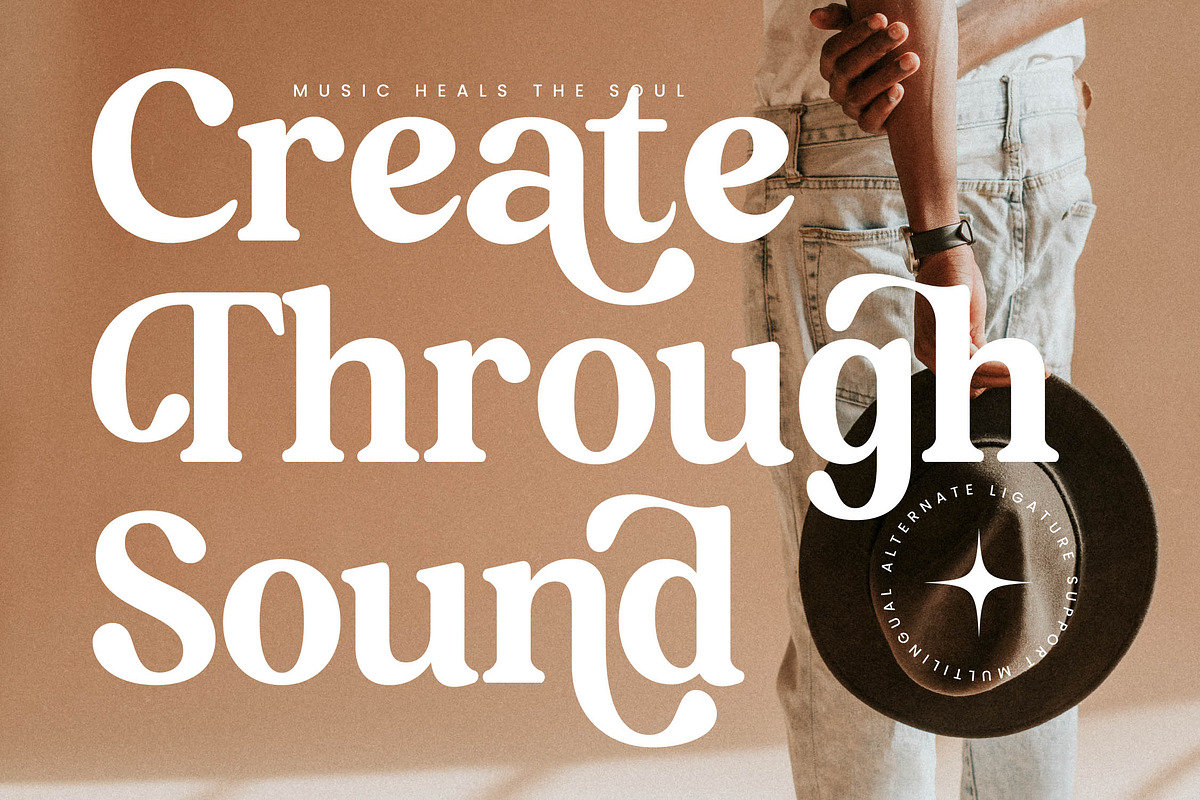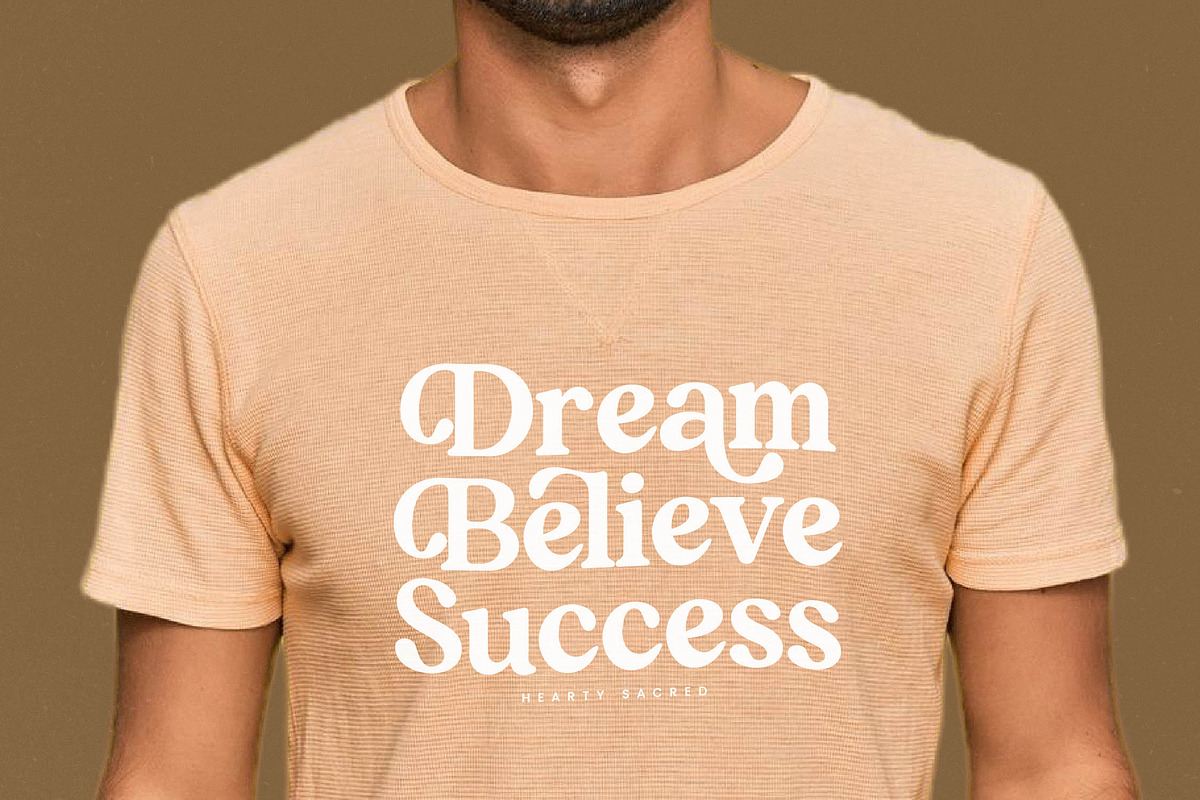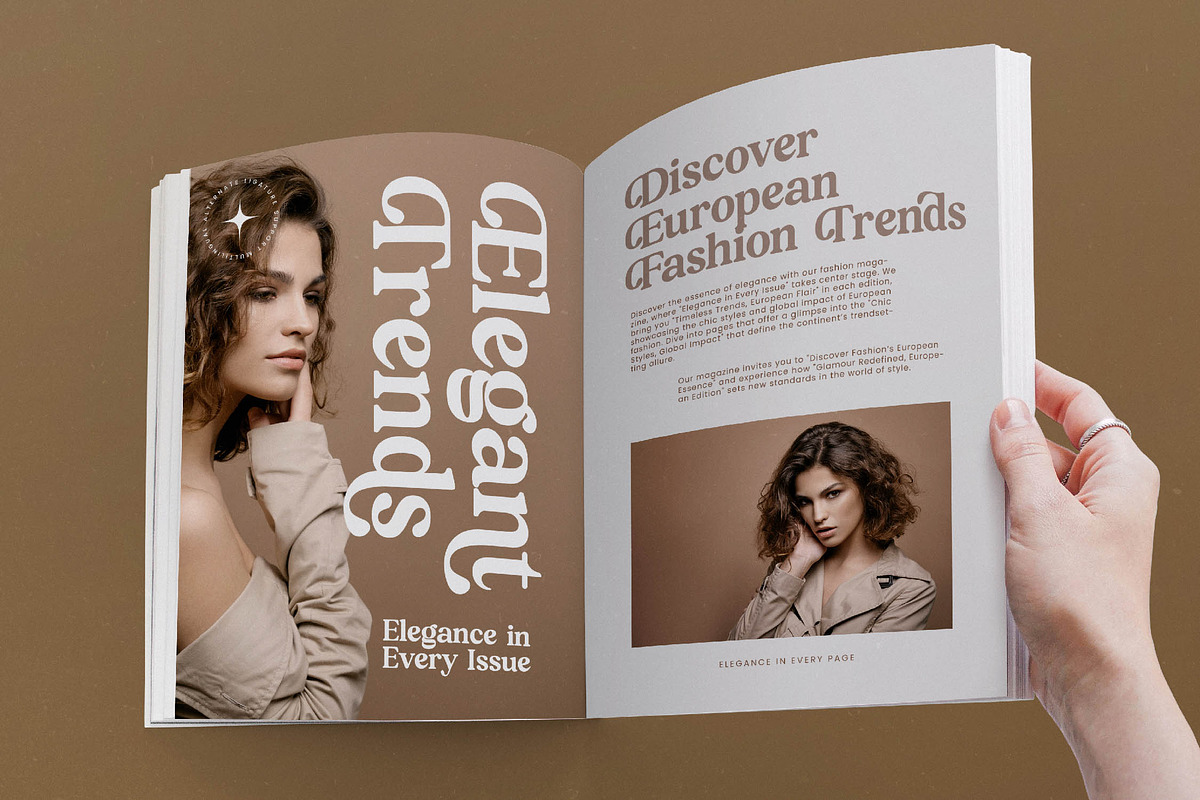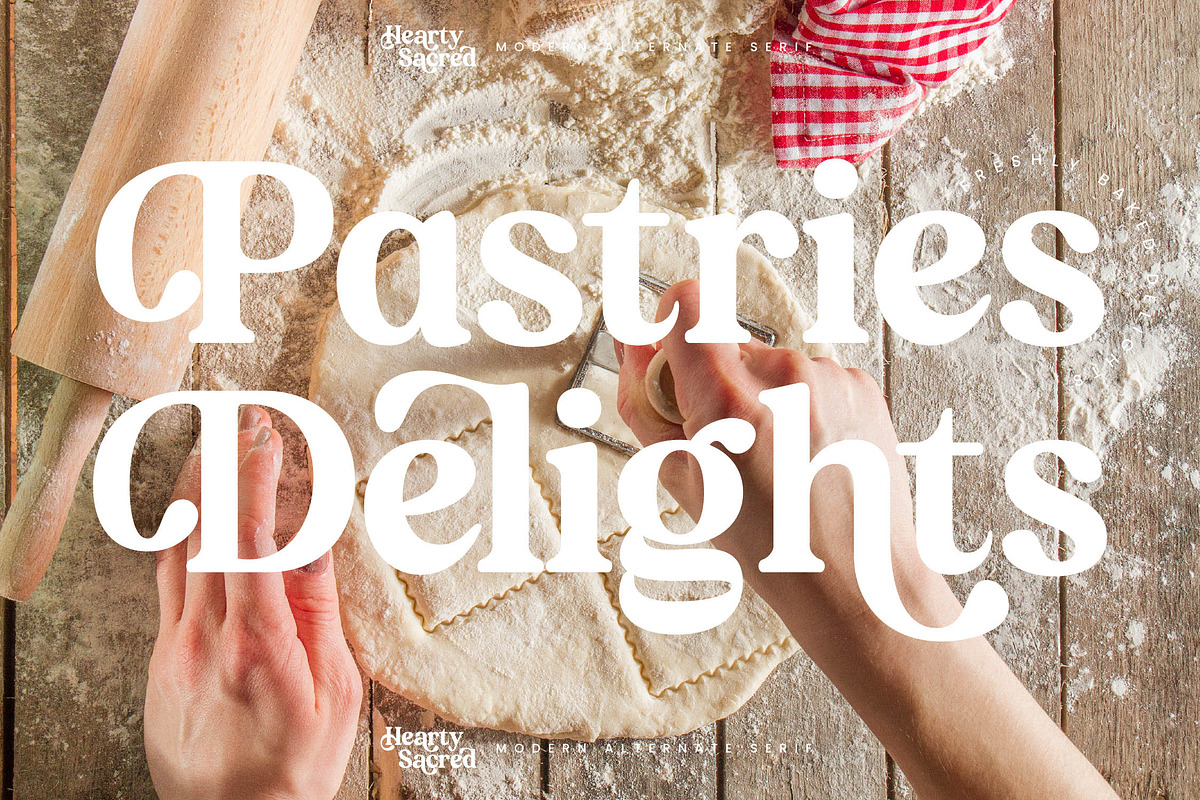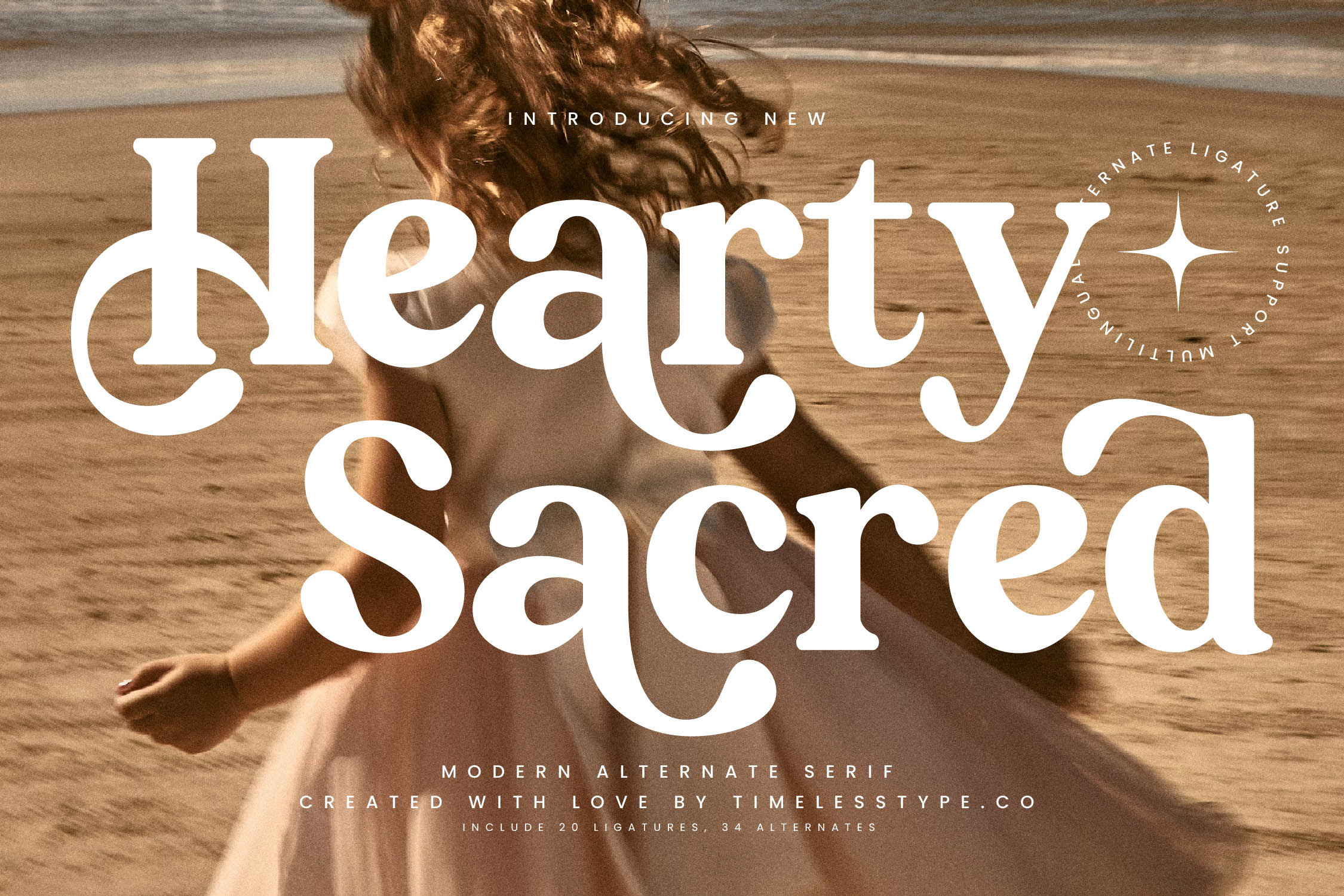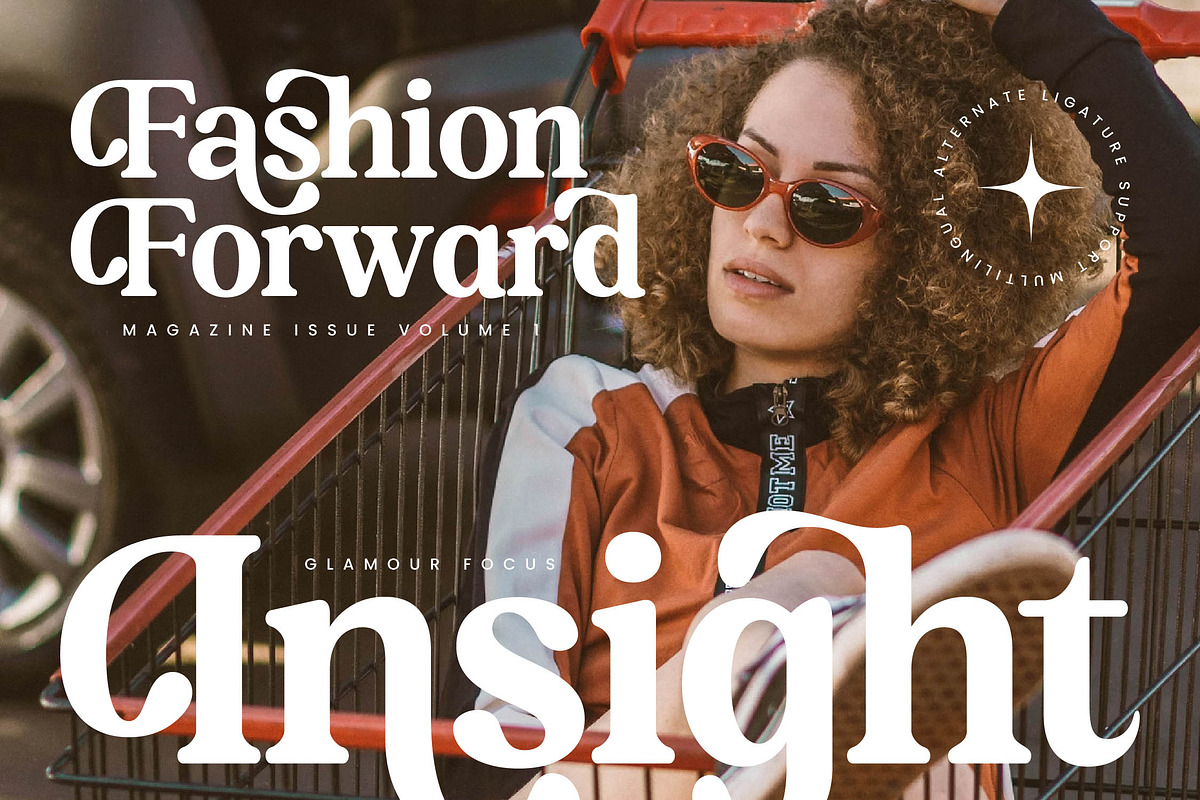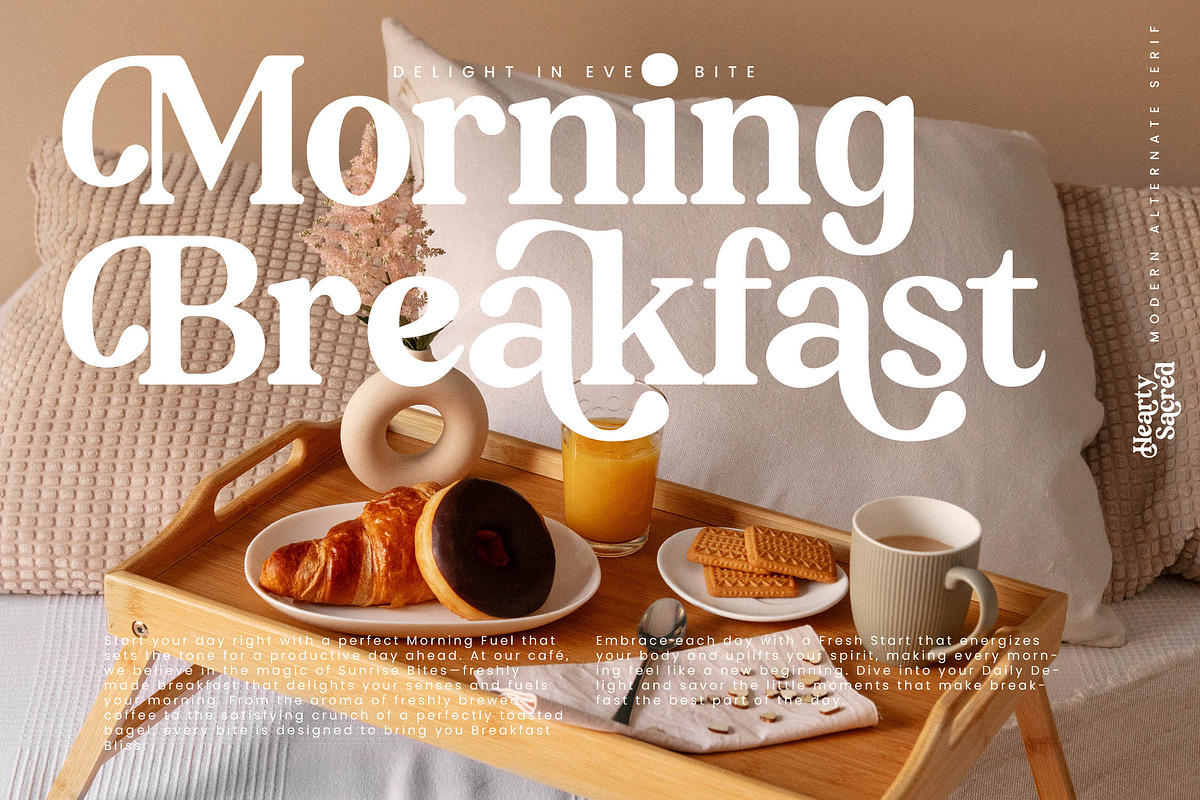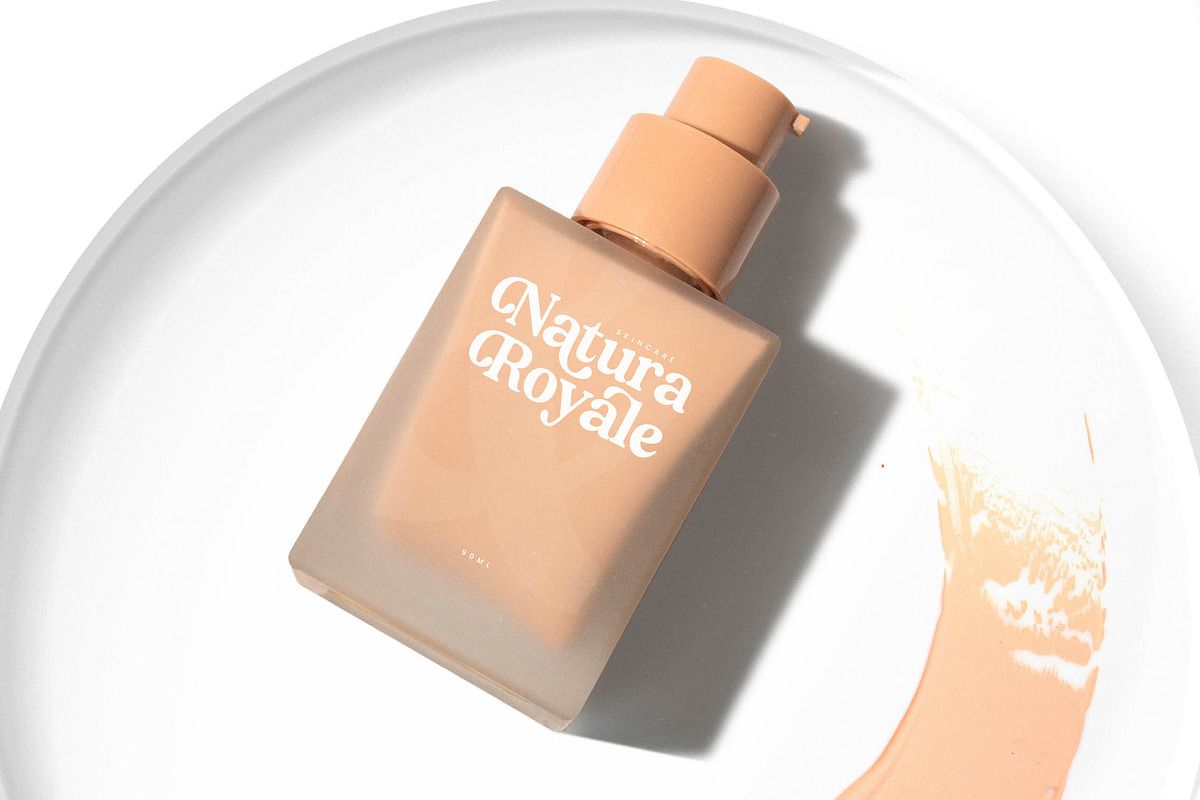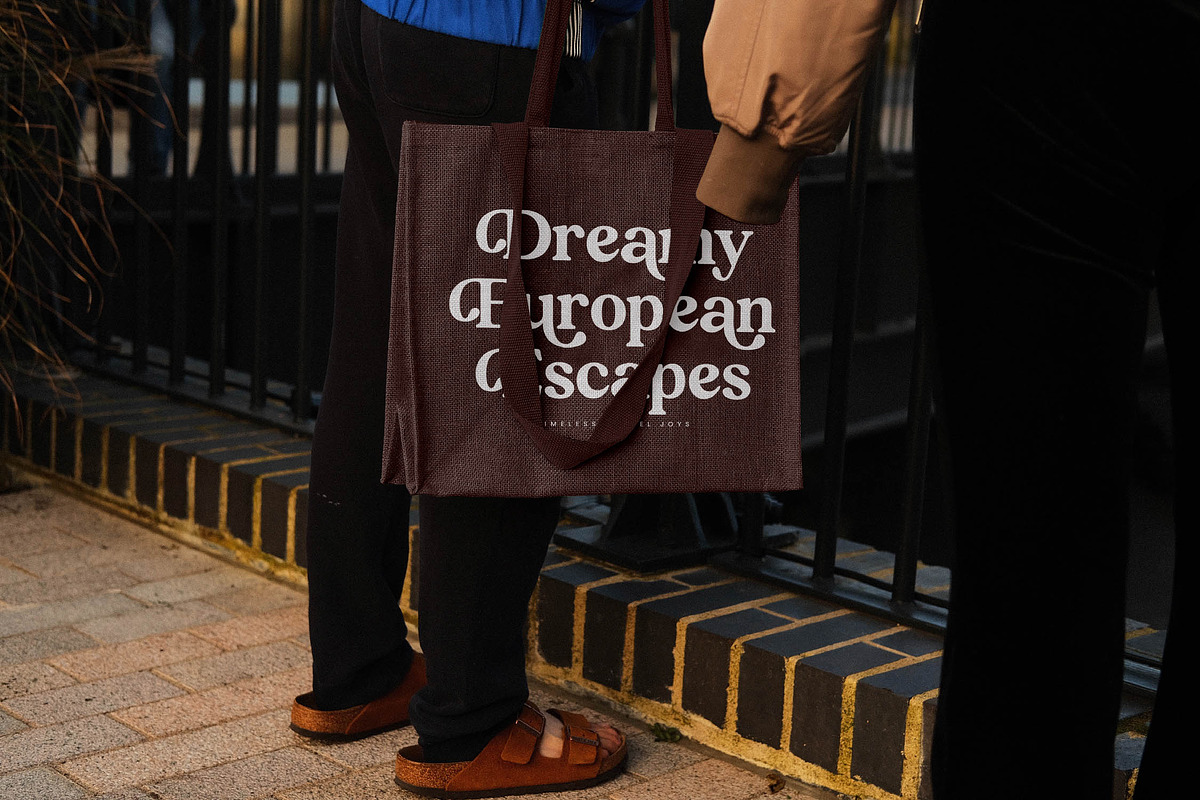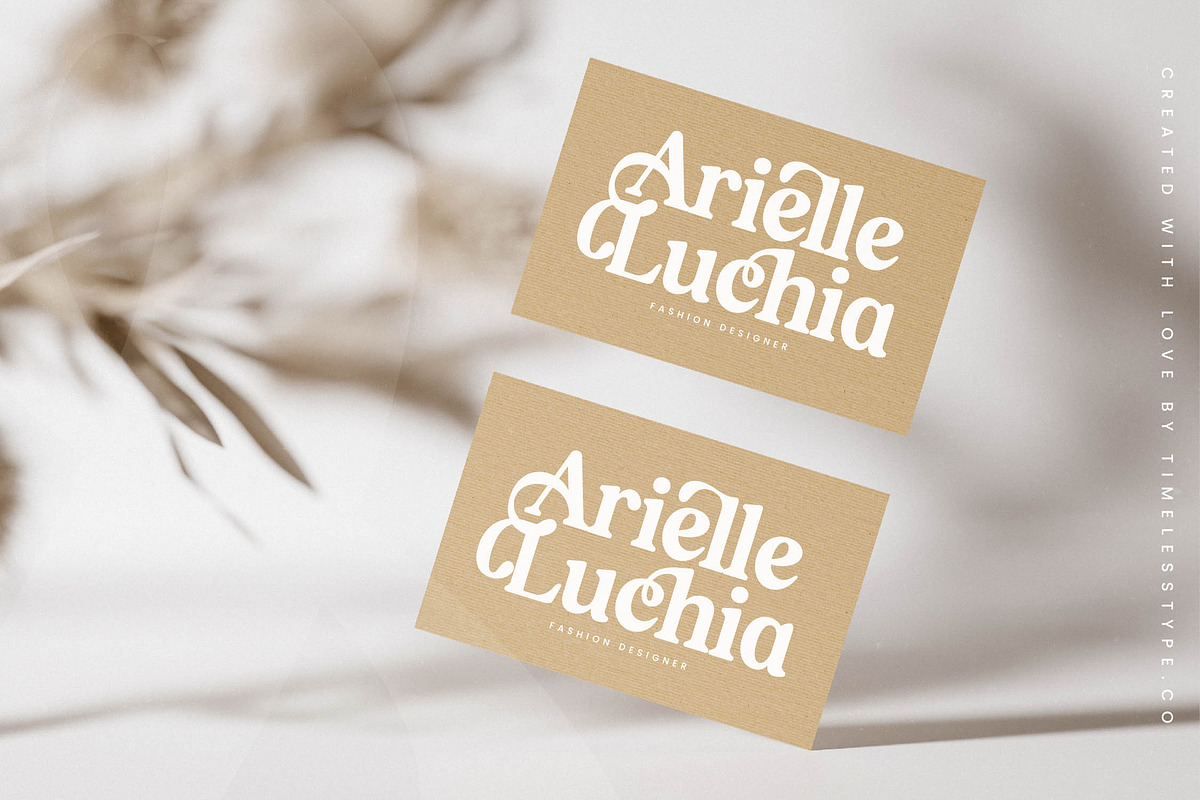
Hearty Sacred Modern Serif Font
Discover the soul of sophisticated design with Hearty Sacred, a typeface that captures the essence of timeless elegance and modern grace. This font brings a poetic touch to every layout, ensuring your message is felt as much as it is read.
Inspired by the intersection of traditional stone-carved lettering and fluid organic forms, this collection evokes a sense of sacred heritage reimagined for the contemporary world. The delicate balance of sharp serifs and soft curves creates an atmosphere of high-end serenity.
Every character is a testament to modern serif display excellence, offering a luxury typography experience that commands attention without effort. As a high-contrast serif, it provides the editorial font quality needed to achieve a significant branding impact across all media.
Perfectly aligned with the current modern serif trend, this typeface fulfills the growing demand for editorial display fonts that tell a story. Its character-driven typography allows designers to break away from generic aesthetics and embrace a more curated, artisanal look.
From high-end logo design to cohesive branding suites, this font is the ultimate tool for editorial layouts, luxury packaging, and bespoke wedding stationery. Its versatile nature makes it a staple for any fashion house or lifestyle boutique seeking a signature look.
This comprehensive package includes an extensive library of ligatures and alternates that allow for custom-feel compositions. With elegant swashes and full multilingual support including international characters, your creative reach becomes truly global.
- Ligature 20 Alternate 34